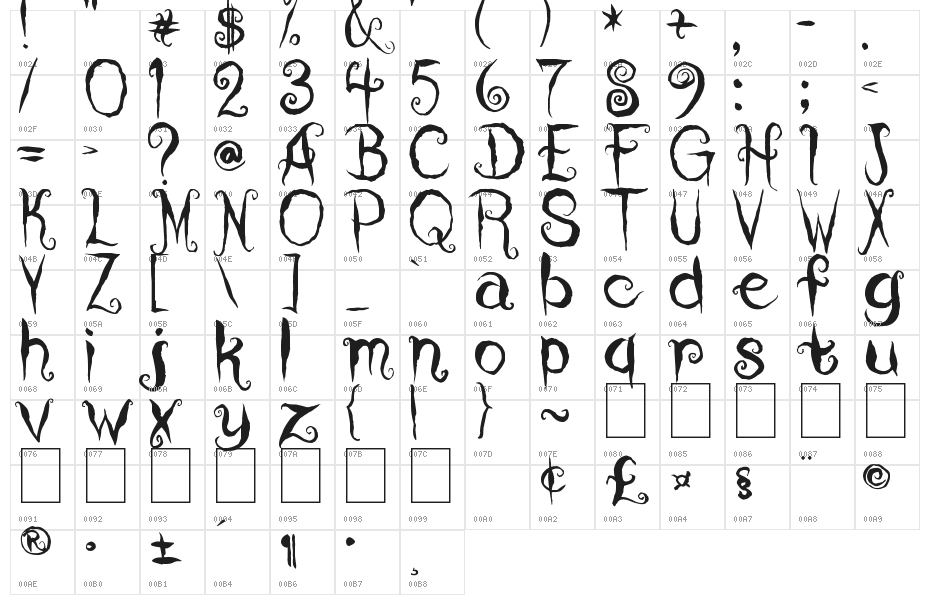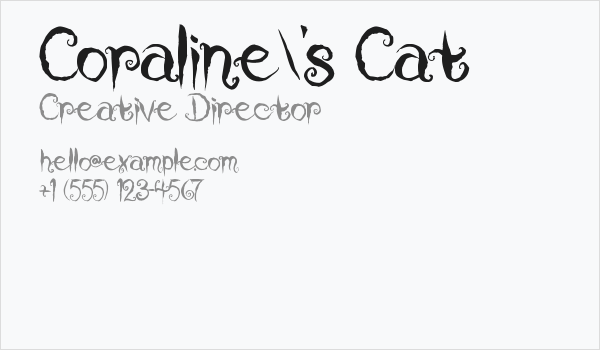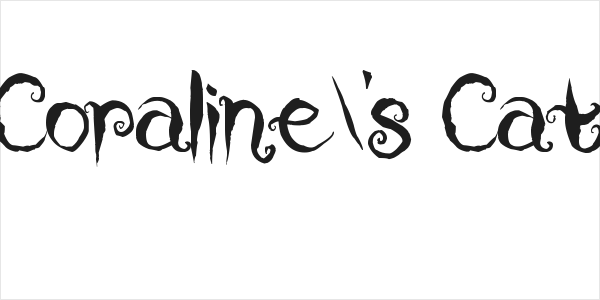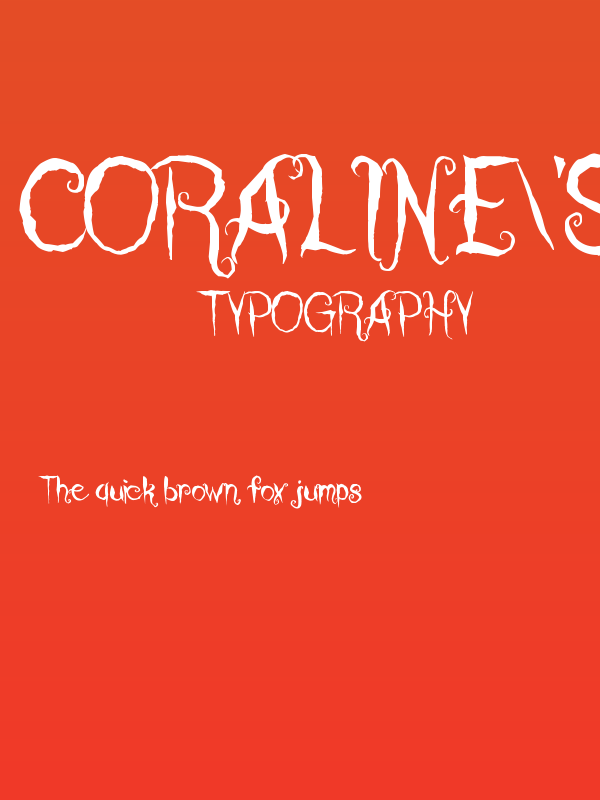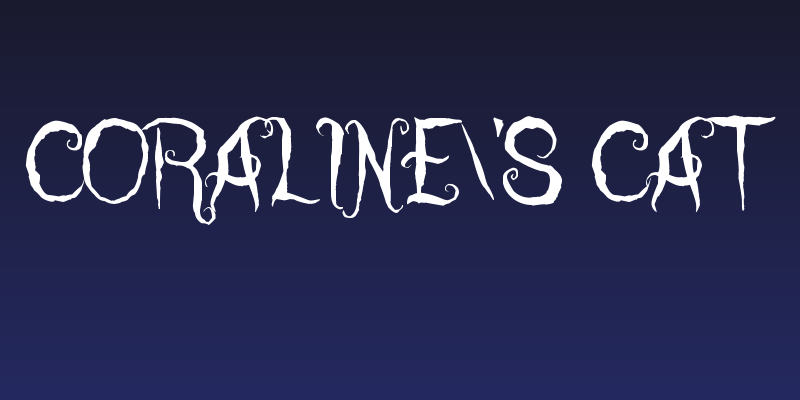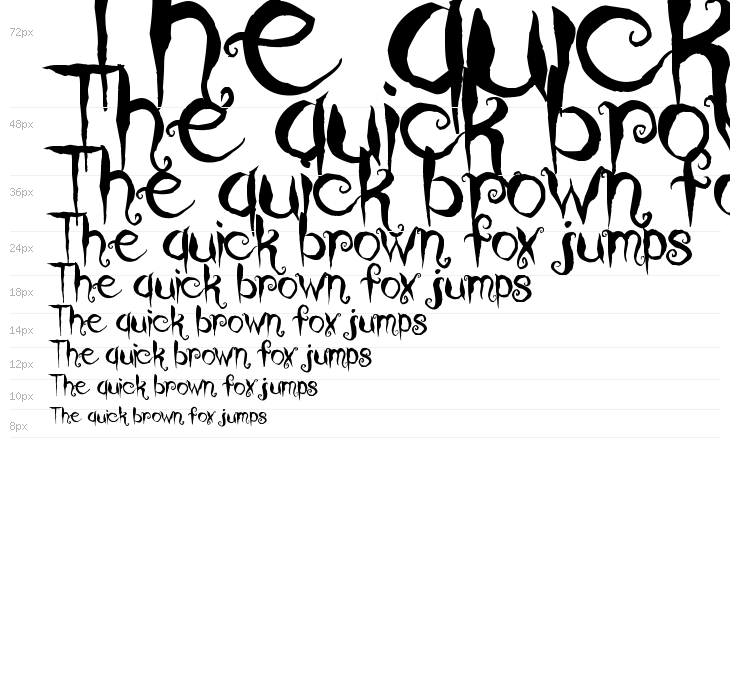
Coraline's Cat Font
Coraline's Cat Description
This font features a whimsical and eerie design, characterized by its sharp, elongated strokes and playful curls. The uppercase letters are tall and narrow, with distinctive hooks and swirls that give them a mysterious, almost gothic appearance. The lowercase letters maintain a similar style, with exaggerated curves and unique flourishes that add to the font's quirky charm. Numbers and special characters are equally stylized, incorporating spirals and pointed edges that enhance the overall fantastical theme. This font is perfect for projects that require a touch of the unusual or a hint of the supernatural.
| Proposed Projects | Ideal for Halloween-themed designs, fantasy book covers, or any project needing a mysterious touch. |